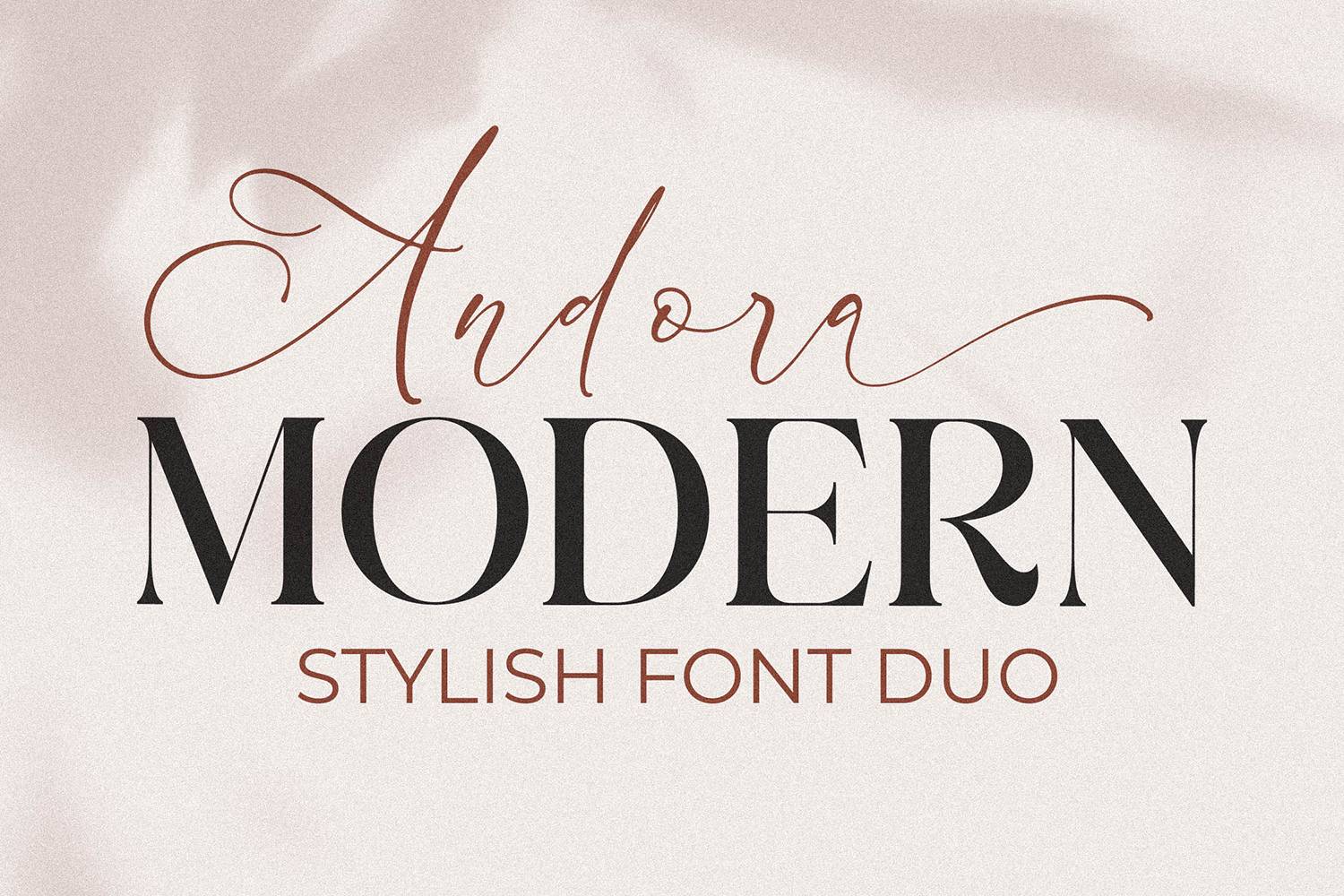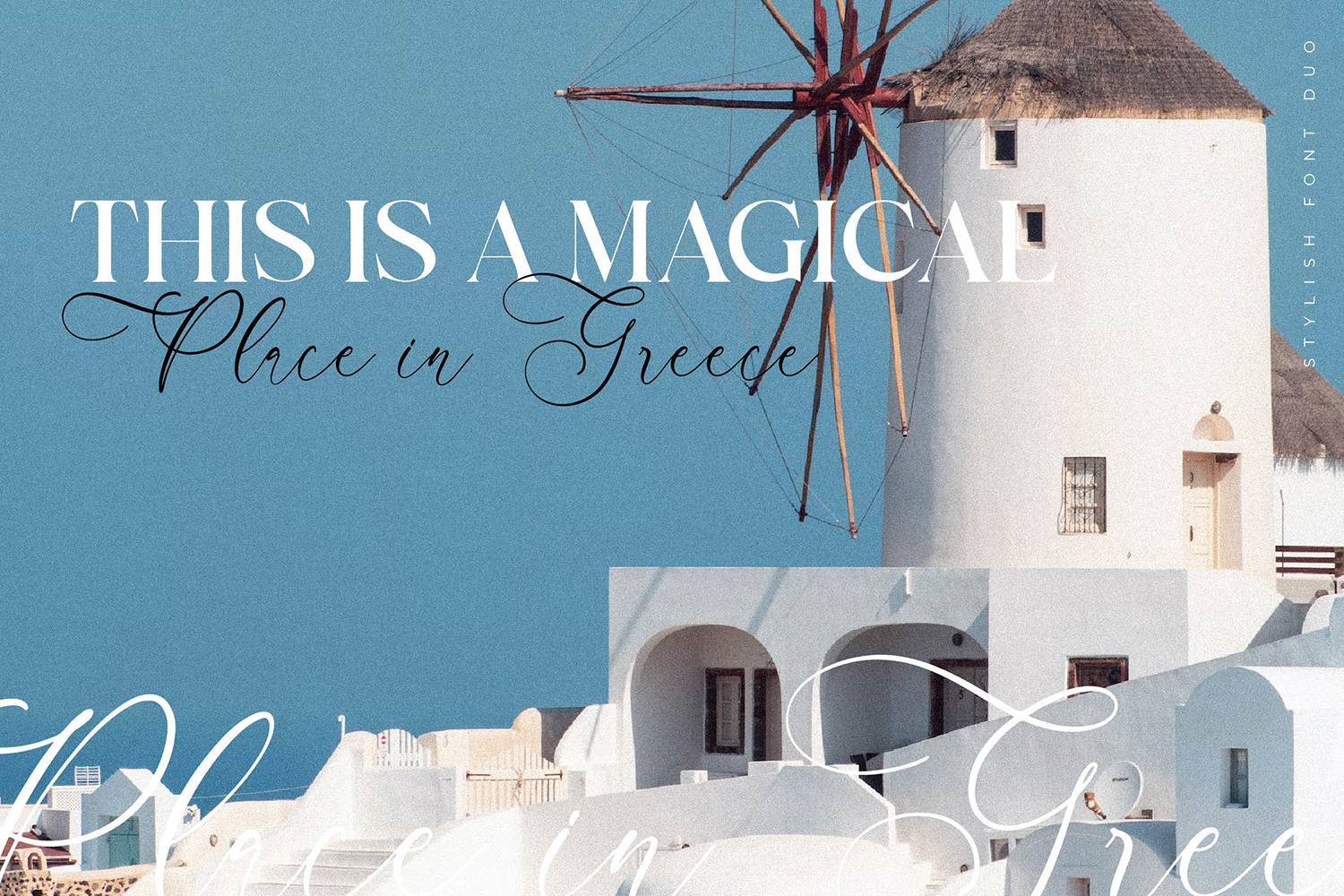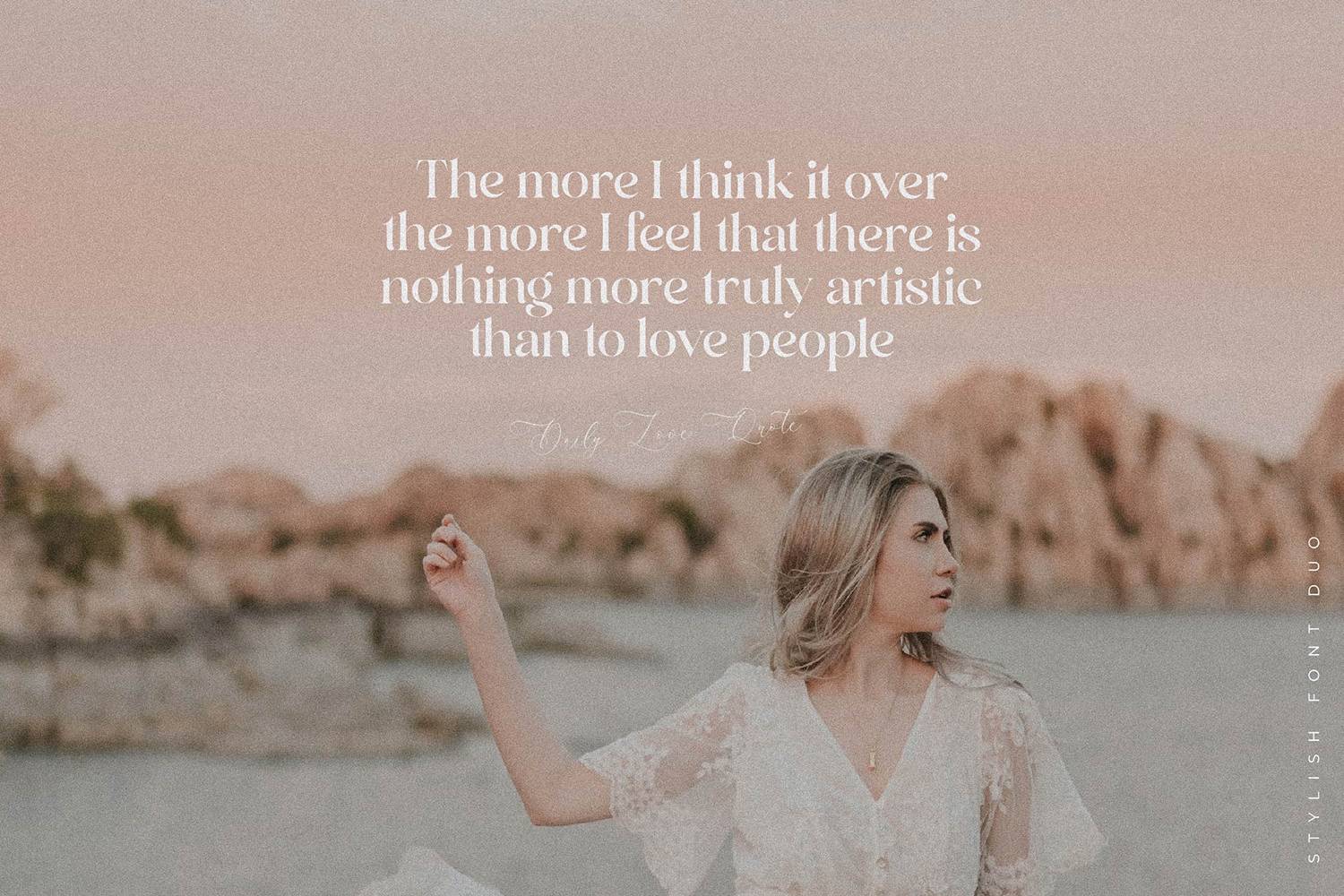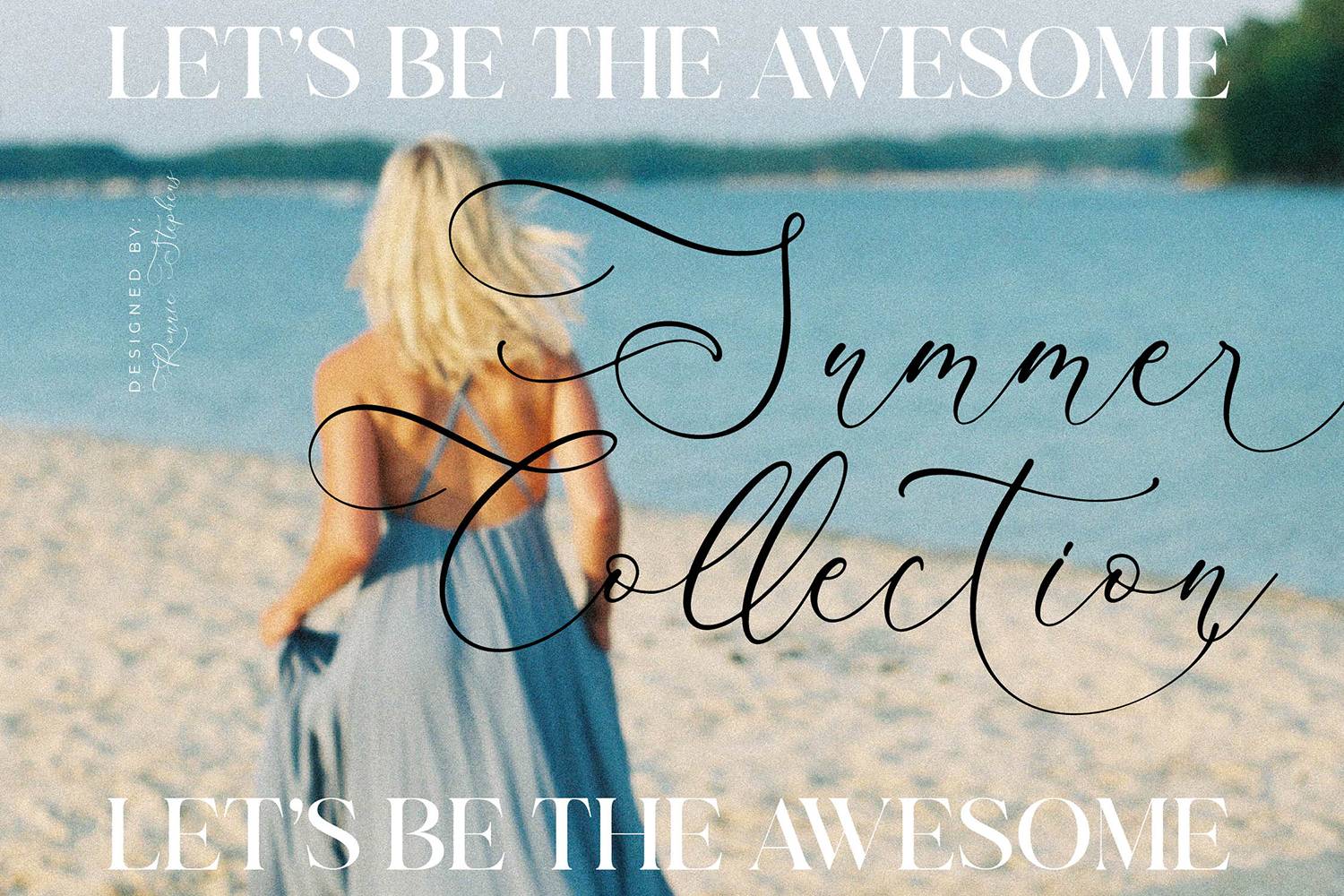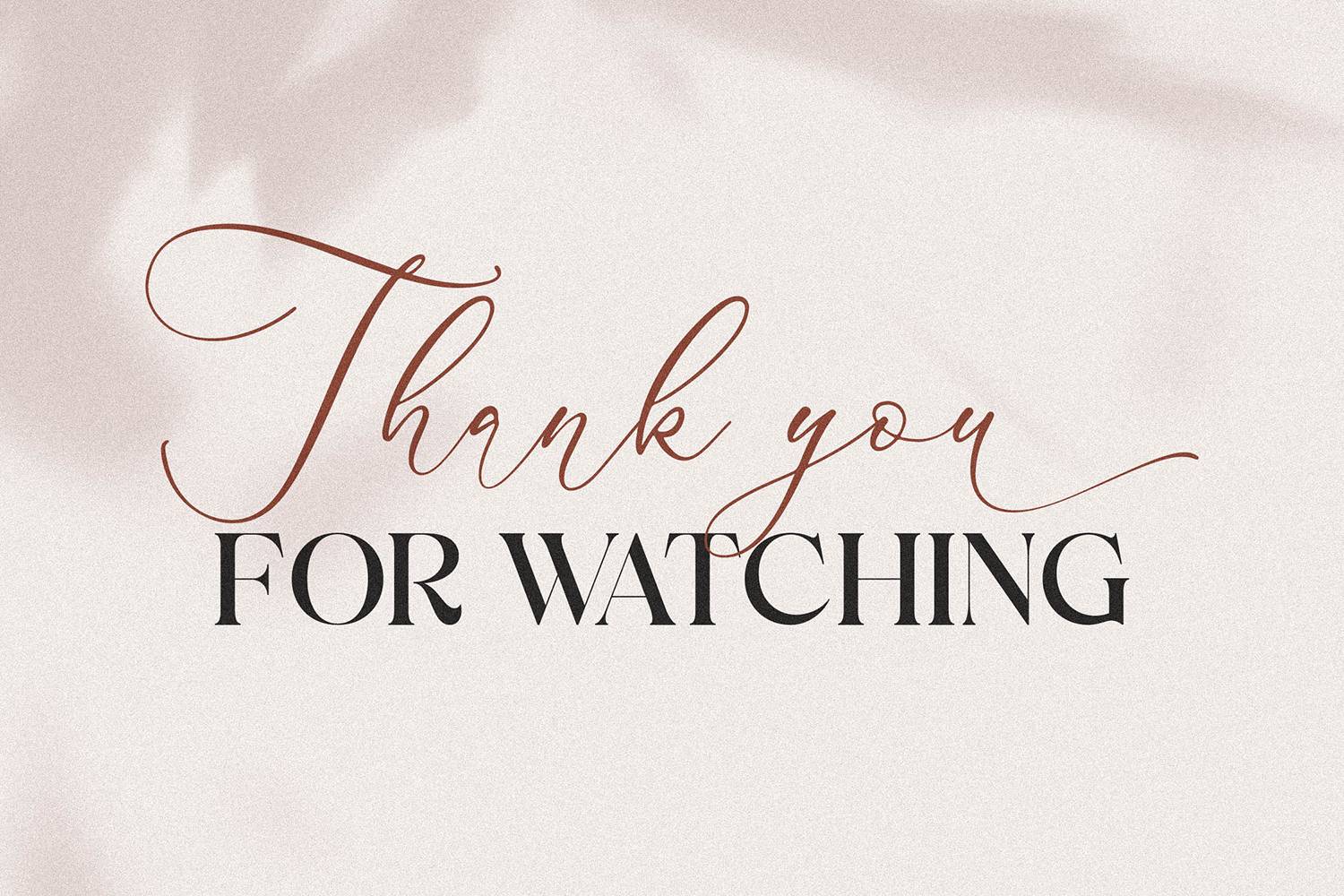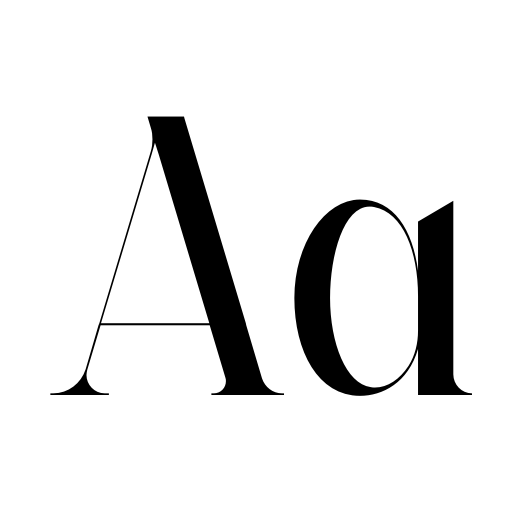
Andora Modern Serif is a refined serif typeface that combines a modern aesthetic with classic elegance. It features high contrast between thick and thin strokes, delicate bracketed serifs, and uniquely shaped letterforms that provide a sophisticated and luxurious feel, making it ideal for fashion branding, editorial headlines, and upscale logo design. This font stands out with its stylish, sharp details and balanced proportions, perfectly suited to projects that require a touch of timeless luxury and modern flair.
Andora Modern Font
About Andora Modern Font